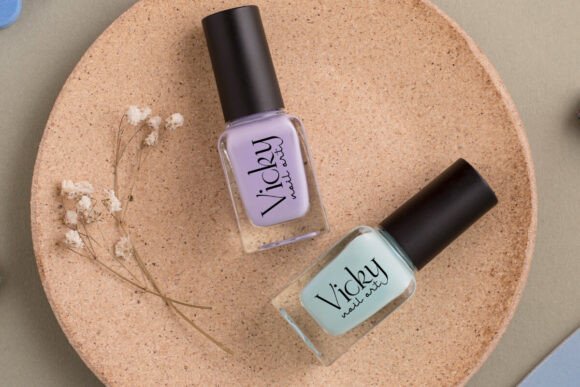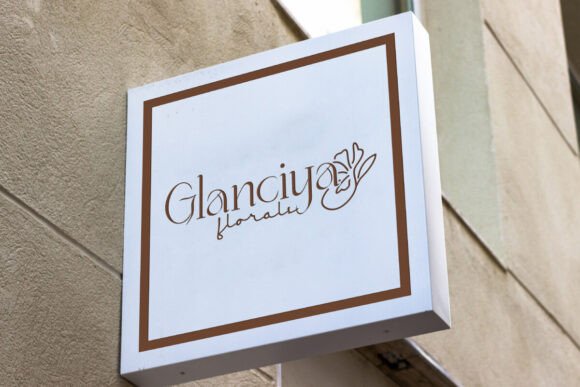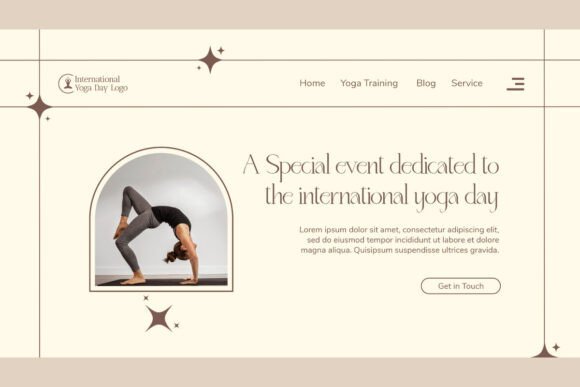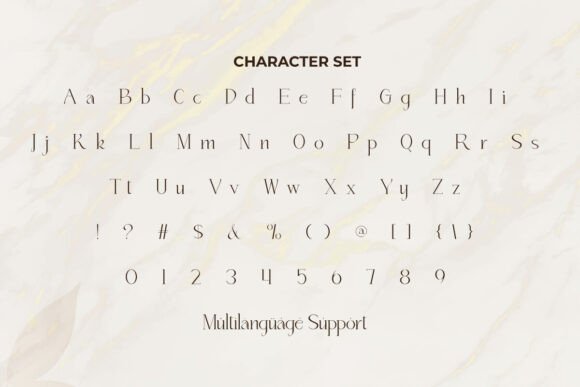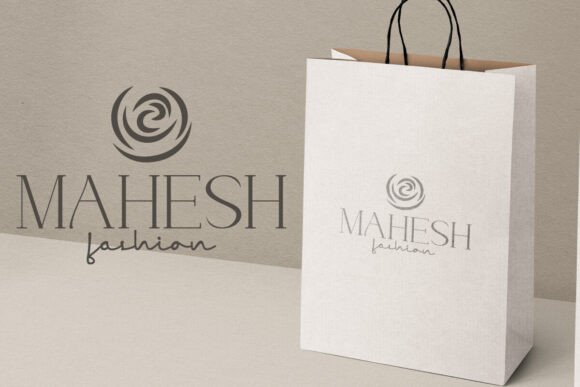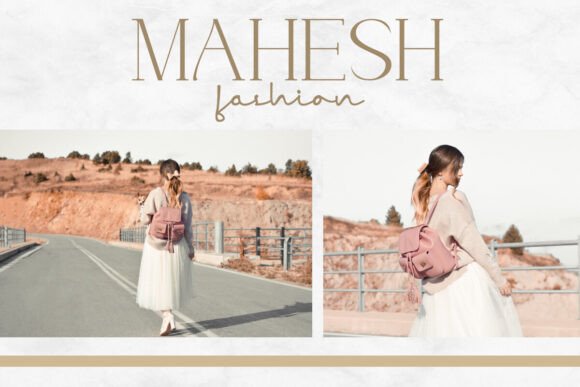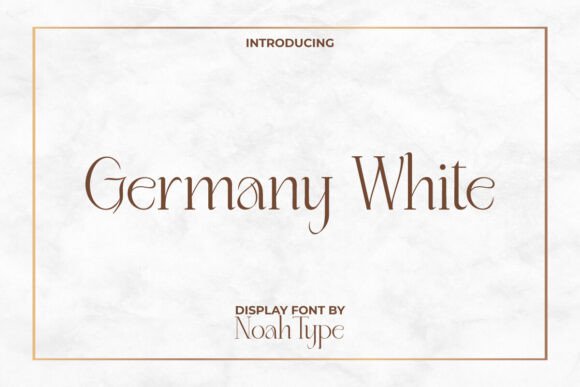
Introducing Germany White Font: Elevate Your Designs with Modern Minimalism
In the world of typography, fonts play a crucial role in conveying messages, expressing creativity, and establishing brand identities. For designers and crafters seeking a modern and sleek look, Germany White Font is an exceptional choice. This stunning minimalist serif display font is designed to add a touch of elegance and sophistication to various design projects.
What Makes Germany White Font Stand Out?
Germany White Font boasts a unique blend of minimalist and modern elements, making it perfect for designers who want to create a lasting impression. The font’s sleek letters exude a sense of simplicity, while its serif details add a touch of refinement. The result is a fancy look that is both visually appealing and highly versatile.
Endless Design Possibilities with Germany White Font
One of the key benefits of Germany White Font is its incredible flexibility. This font can be used across a wide range of design applications, including:
- Brand image: Establish a strong visual identity for your brand with Germany White Font’s modern and sophisticated look.
- Cover design: Create eye-catching covers for books, magazines, or albums that grab attention.
- Custom design: Add a personal touch to your designs with Germany White Font’s unique and elegant style.
- Invitation: Design beautiful and stylish invitations for special occasions, such as weddings, parties, or events.
- Label: Create labels that stand out on products, gifts, or packages.
- Marketing material: Elevate your marketing campaigns with Germany White Font’s modern and sleek look.
- Menu: Design menus that are both visually appealing and easy to read.
- Poster: Create stunning posters that capture attention and convey your message effectively.
- Product packaging: Add a touch of elegance to your product packaging and make it stand out on store shelves.
- Quote: Design inspirational quotes that are both beautiful and thought-provoking.
- Signage: Create eye-catching signs that are perfect for businesses, events, or exhibitions.
- Stationery: Design stylish stationery, such as letterheads, business cards, or notebooks.
- Web: Use Germany White Font to create a modern and responsive website that engages your audience.
Why Choose Germany White Font?
Germany White Font offers a range of benefits that make it an excellent choice for designers and crafters. Some of the key advantages include:
- Unique and modern design: Germany White Font’s sleek and minimalist design sets it apart from other fonts.
- Highly versatile: This font can be used across a wide range of design applications.
- Elegant and sophisticated: Germany White Font adds a touch of refinement and elegance to any design.
- Easy to read: Despite its minimalist design, Germany White Font is highly legible and easy to read.
Tips for Using Germany White Font Effectively
To get the most out of Germany White Font, here are some tips for using it effectively:
- Pair with complementary fonts: Combine Germany White Font with other fonts that complement its modern and sleek look.
- Use contrasting colors: Experiment with contrasting colors to make your design stand out.
- Play with font sizes: Use different font sizes to create visual hierarchy and add depth to your design.
- Experiment with effects: Try adding effects, such as shadows or textures, to give your design an extra layer of interest.
Germany White Font is a stunning minimalist serif display font that offers a modern and sleek look. With its elegant and sophisticated design, this font is perfect for designers and crafters seeking to create a lasting impression. Whether you’re designing a brand image, cover, or marketing material, Germany White Font is an excellent choice. Its versatility, legibility, and unique design make it an essential addition to any designer’s toolkit.